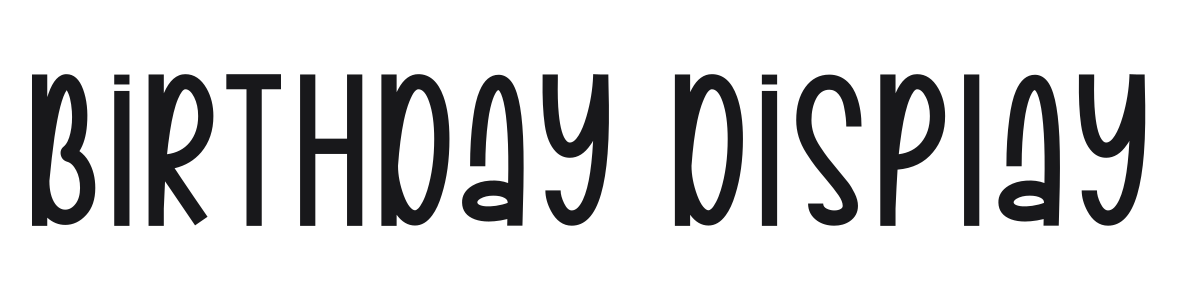
Birthday Display
Birthday Display is a quirky tall sans-serif with a playful mix of irregular character heights that gives text an energetic, celebratory bounce. Stroke contrast is minimal and terminals are gently rounded, keeping things friendly rather than rigid. It fits naturally in party invitations, children's branding, and festive packaging where personality matters more than neutrality.